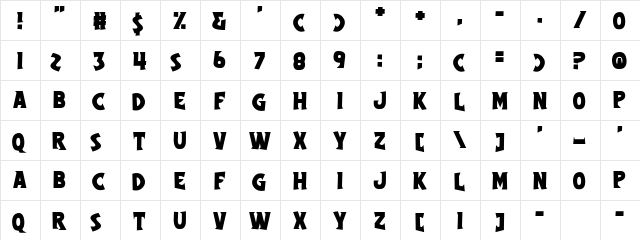
Segreteria Regular
| Designer | Allison JJ |
Design Context for Segreteria Typeface
Segreteria offers clean, dependable letterforms without strong stylistic allegiance, making it a practical choice for designers who need flexibility.
Pro Tip: Use Segreteria in both headline and body roles to test its range before committing to a single application.